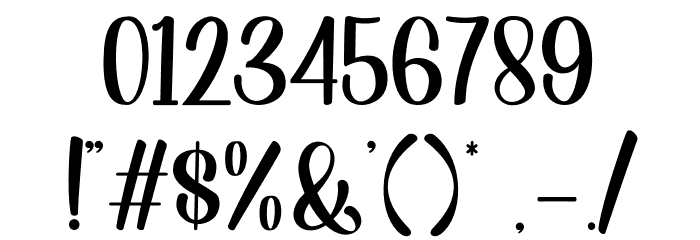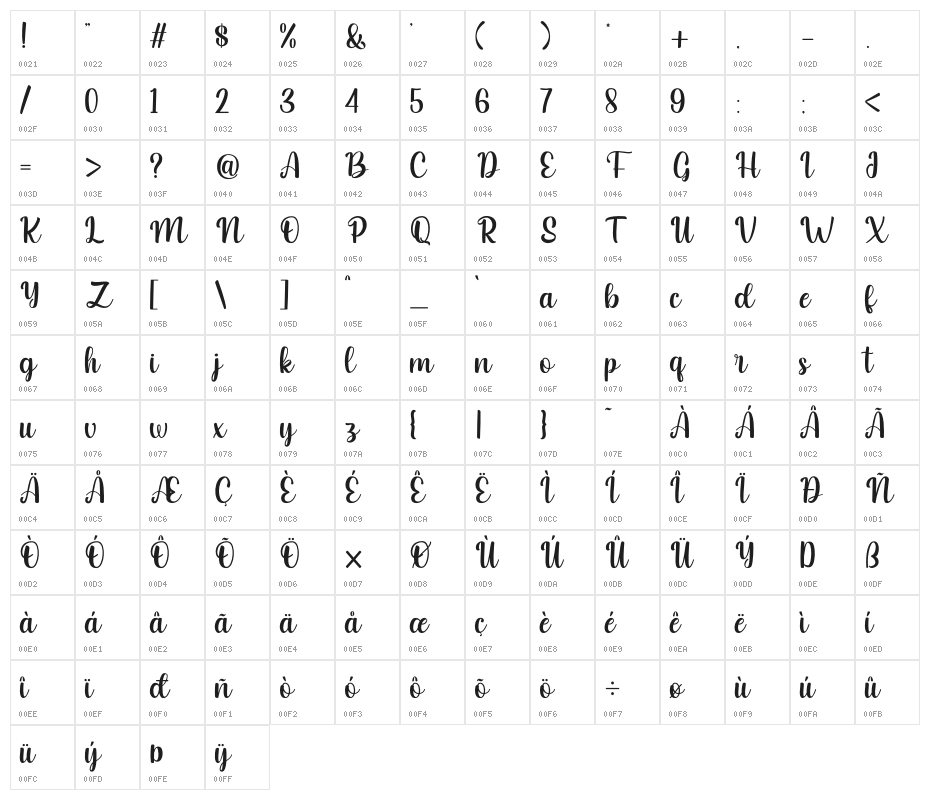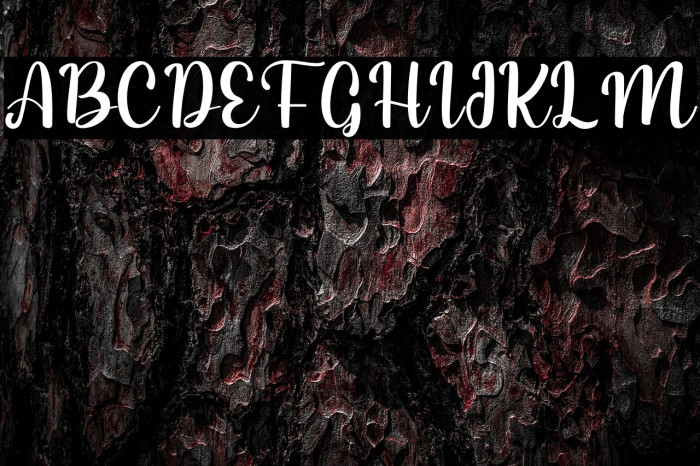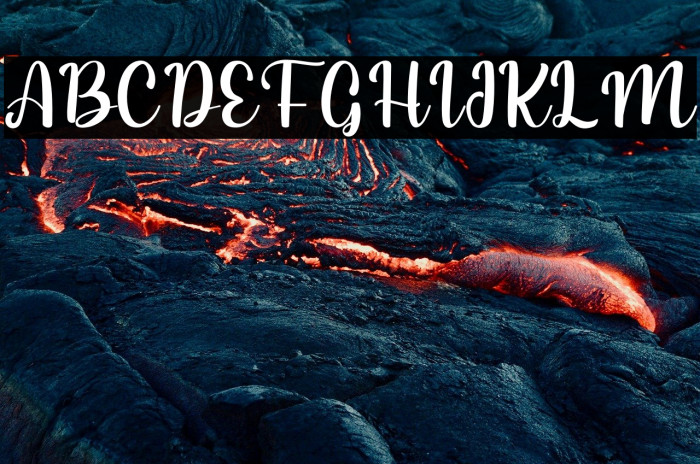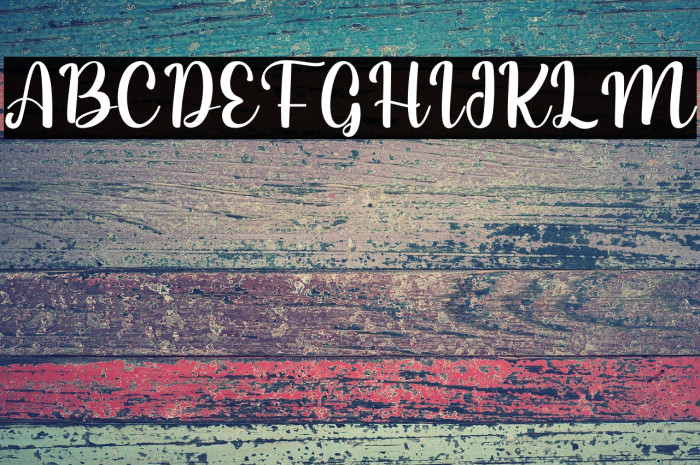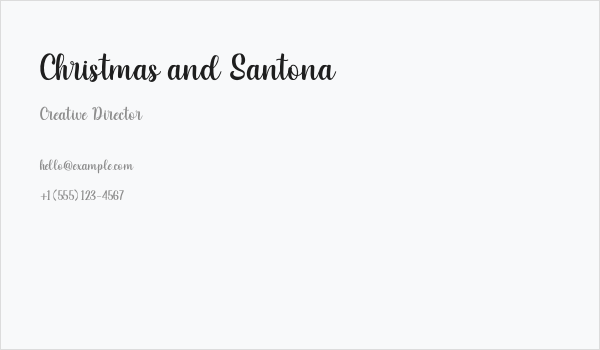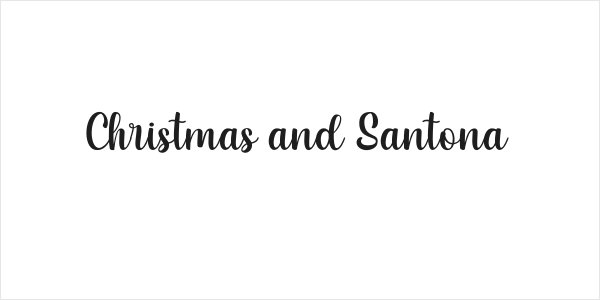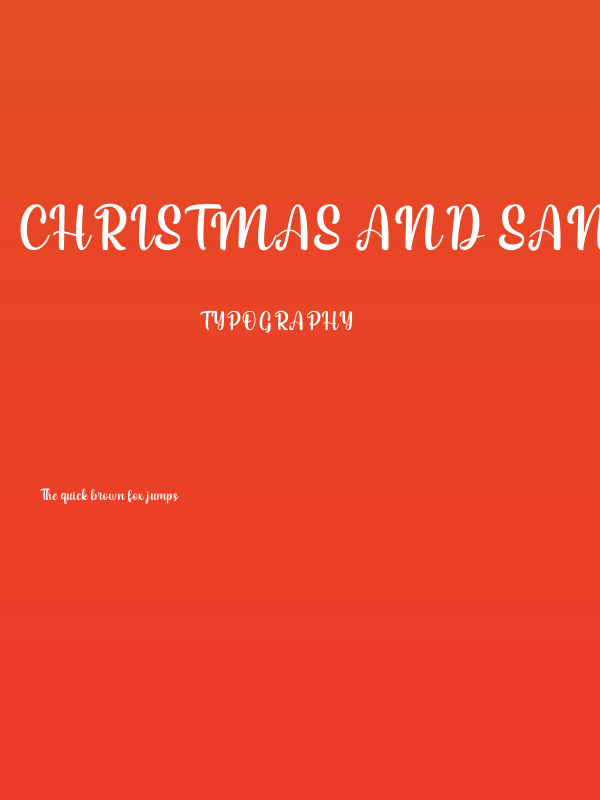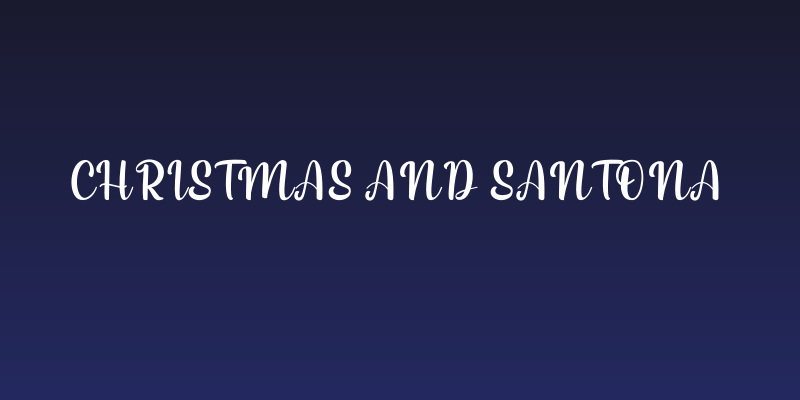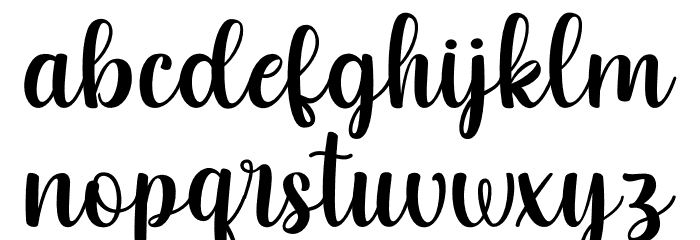
Christmas and Santona Font
Christmas and Santona Description
This font features a playful and festive script style, characterized by its flowing, cursive letterforms that evoke a sense of joy and celebration. The uppercase letters are bold and slightly slanted, giving them a dynamic appearance, while the lowercase letters maintain a consistent, rounded form that enhances readability. The numerals are well-proportioned, matching the overall style of the alphabet. Special characters are included, adding versatility for various design needs. The font's strokes are moderately thick, providing a medium contrast that ensures visibility without overwhelming the design. Its whimsical nature makes it ideal for holiday-themed projects, invitations, and decorative purposes.